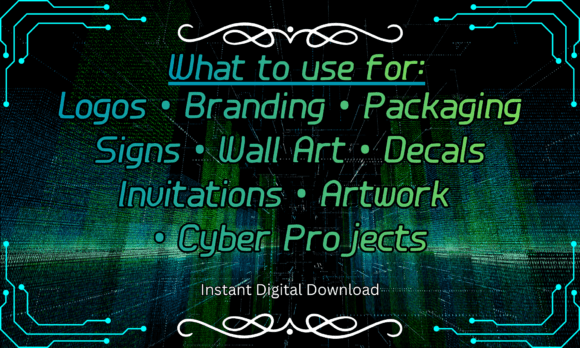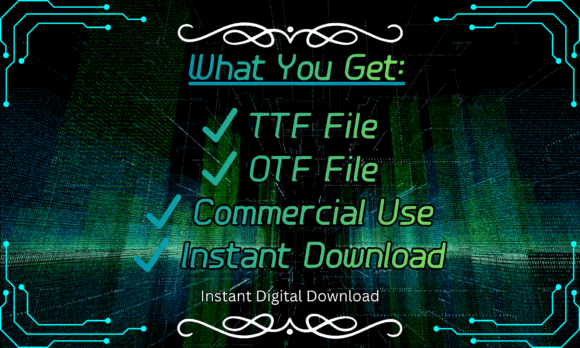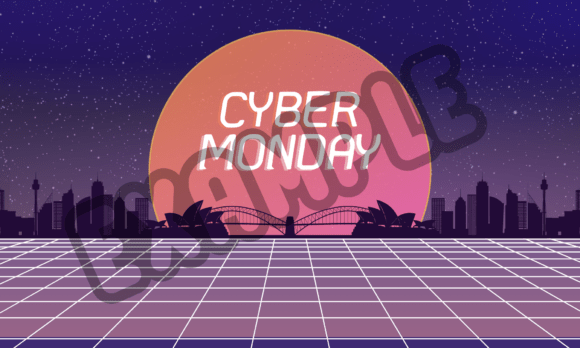
Introduction to Cyber Matrix Font
Do you remember the thrill of working on a creative project, pouring your heart and soul into every detail, only to have it all come together with a single, perfect font? For designers, a great font can be the missing piece that elevates a design from good to great. And that’s exactly what the Cyber Matrix Font aims to deliver – a sleek, futuristic typeface that’s perfect for any project that needs a dash of high-tech style.
Whether you’re working on a tech startup’s branding, a sci-fi poster, or a gaming logo, the Cyber Matrix Font is the perfect design resource to give your project a boost. With its clean tech lines and glowing sci-fi energy, this font feels like it was pulled straight out of a digital universe, making it a must-have for any designer looking to add some futuristic flair to their work.
Key Features of Cyber Matrix Font
- High-quality digital font suitable for creative projects, offering a unique blend of futuristic and technological elements.
- Includes multiple styles and weights, enabling users to create a wide range of visual effects and moods.
- Perfect for use in futuristic, sci-fi, and technological-themed designs, adding a touch of cyberpunk sophistication.
Honest Review: Cyber Matrix Font
I recently had the chance to try out the Cyber Matrix Font, and I must say it’s been a great addition to my design arsenal. This font is perfect for any creative project that needs a futuristic touch.
Here’s what works well: ✨ The font is highly customizable, allowing you to adjust the size, color, and even add a transparent background to give your design a sleek, modern look. The high-quality design makes it perfect for any professional project.
- Perfect for creative projects that require a futuristic touch
- Highly customizable with options for size, color, and transparent background
However, there are a few limitations to consider: ⚠️ The font may not be suitable for projects that require a more traditional or classic look. Additionally, some users may find the font too futuristic or overwhelming for certain designs.
Overall, I’m impressed with the Cyber Matrix Font and would highly recommend it to anyone looking for a unique and high-quality design element. It’s a great resource for any designer looking to add a touch of modernity to their project.
The Cyber Matrix Font is a high-quality, free download design resource ideal for creative projects requiring a unique and futuristic look. With its transparent background, this font is perfect for designers looking to add a touch of edginess to their work.
The Cyber Matrix Font is perfect for a wide range of creative projects, including:
- Futuristic logos and branding
- Science fiction and technology-themed designs
- Video game and animation projects
- Marketing and advertising materials
Is the Cyber Matrix Font a high-quality font?
Yes, the Cyber Matrix Font is a high-quality font designed to meet the needs of designers working on creative projects. It features a unique and futuristic design style, making it perfect for projects that require a cutting-edge look. The font is also carefully crafted to ensure that it is highly legible and easy to read, even at small font sizes.